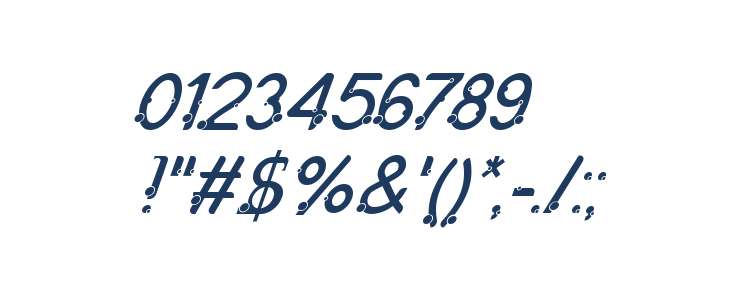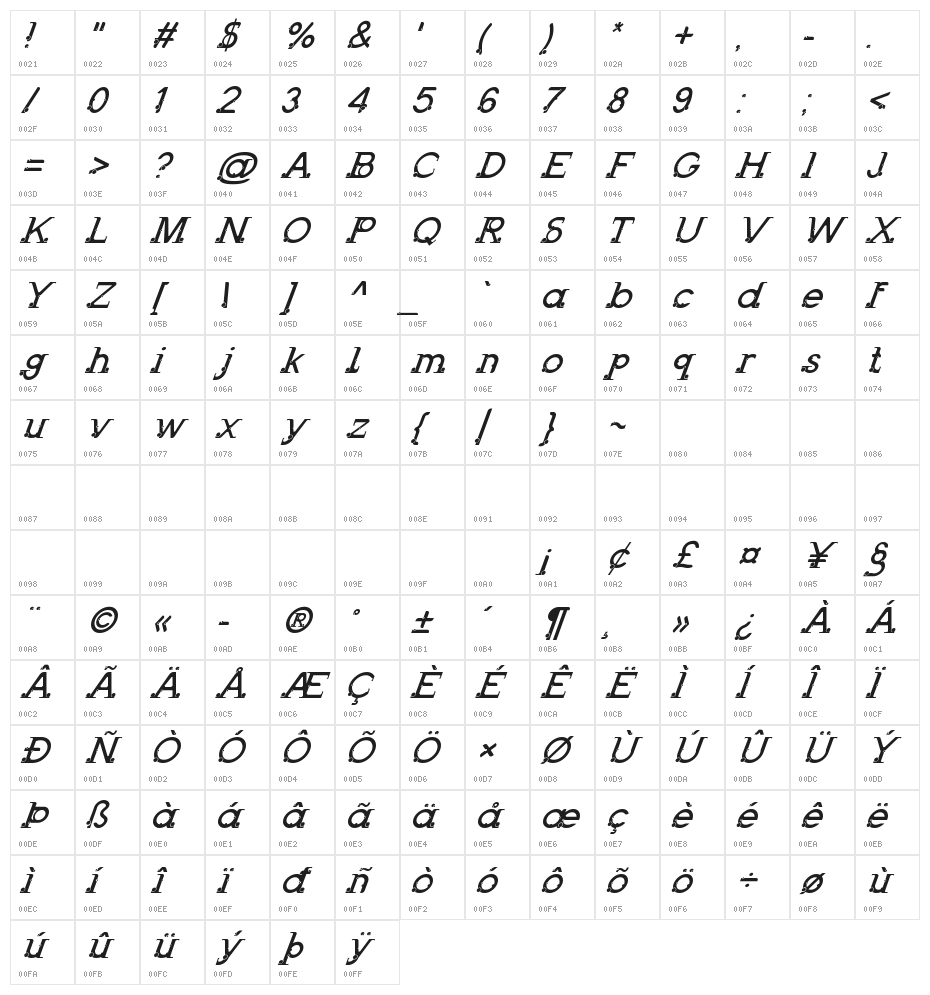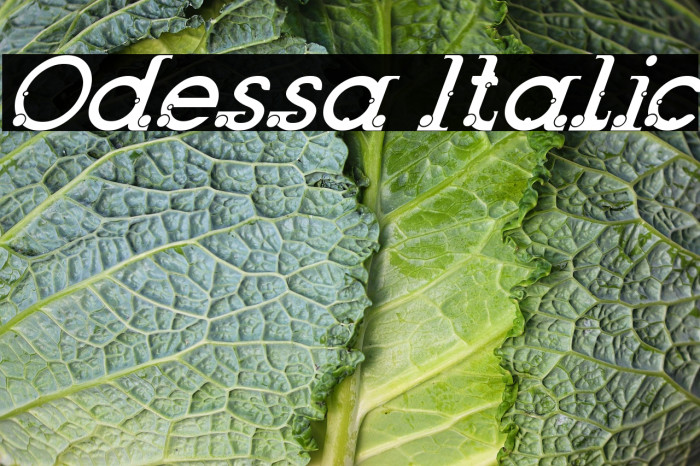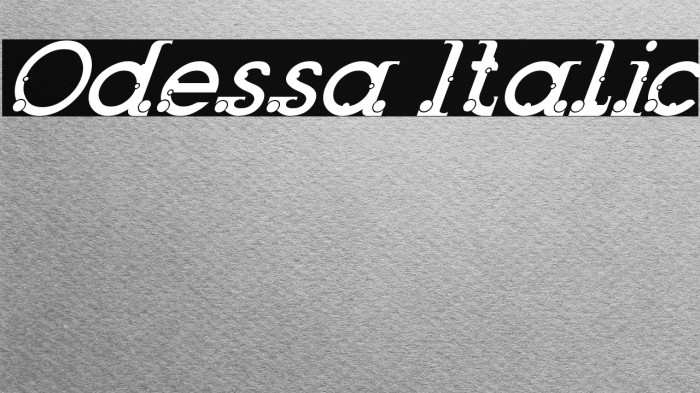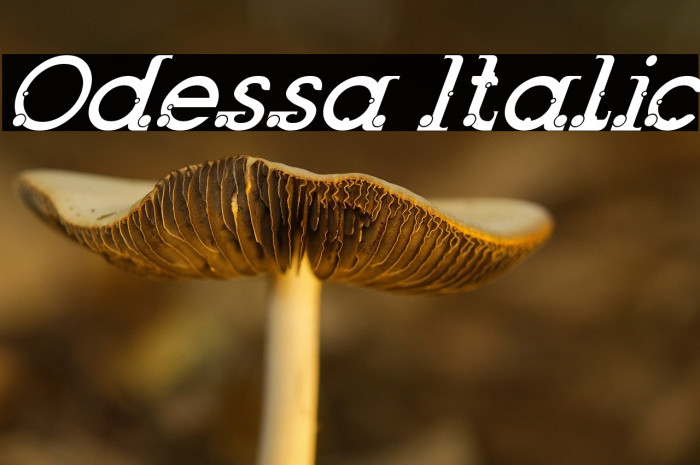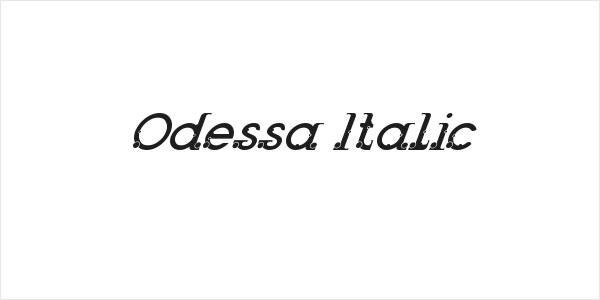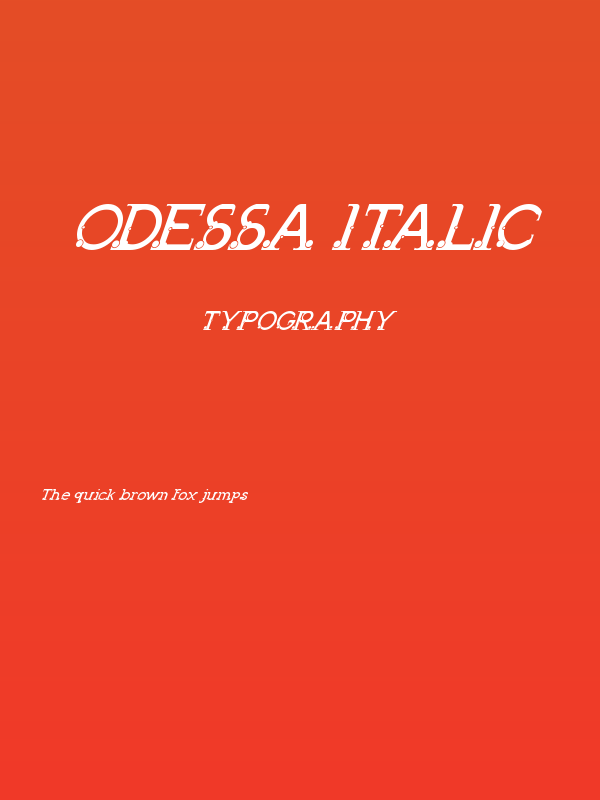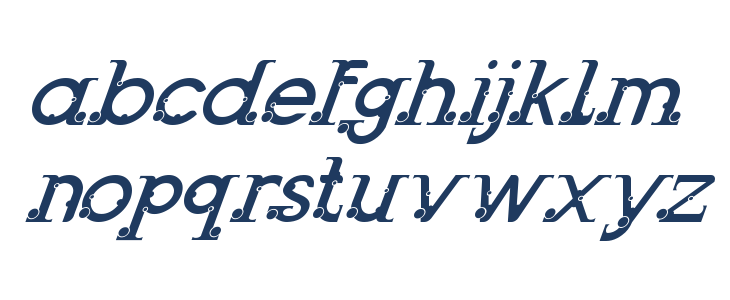
Odessa Italic Font
Odessa Italic Description
This font features a unique and playful design with a distinctive dot pattern integrated into each character. The characters are italicized, giving them a dynamic and flowing appearance. The font combines elements of both modern and decorative styles, with a high contrast between thick and thin strokes. The uppercase and lowercase letters maintain a consistent style, while the numbers and special characters follow the same playful theme. The overall look is both eye-catching and versatile, suitable for a variety of creative applications.
Overall StyleModern, Decorative
Proposed ProjectsIdeal for creative projects such as posters, invitations, branding, and packaging that require a distinctive and modern touch.